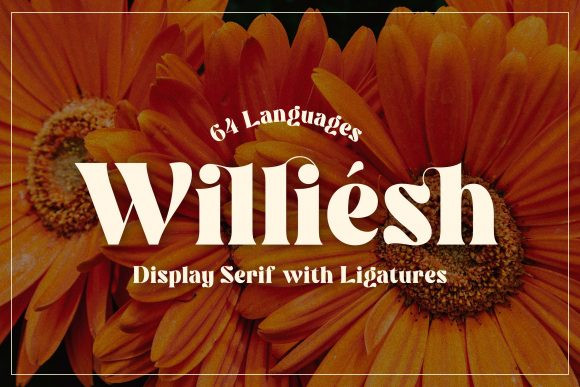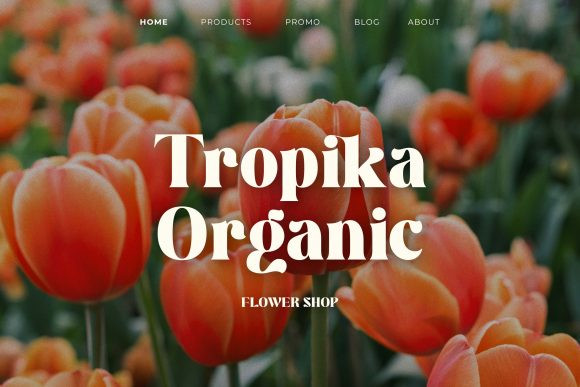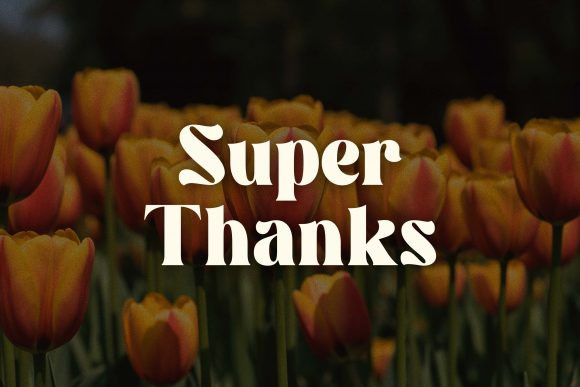
Williesh Font
Williesh is a bold, thick lettered yet distinct serif font. No matter the topic, this font will be an incredibly asset to your fonts’ library, as it has the potential to elevate any creation.